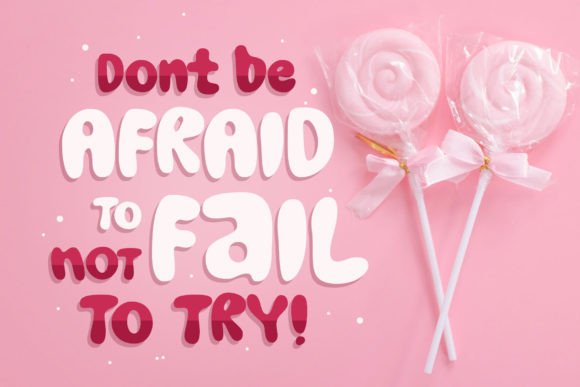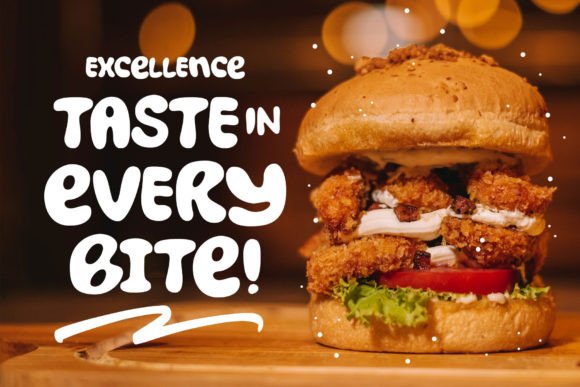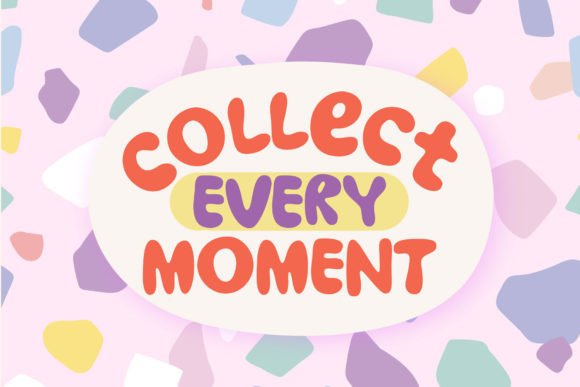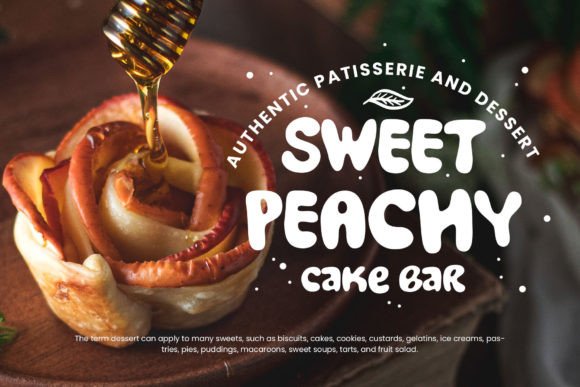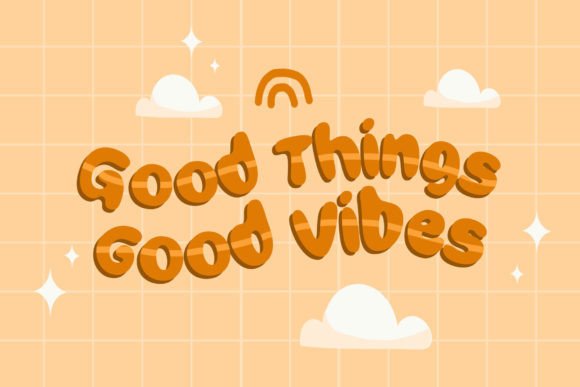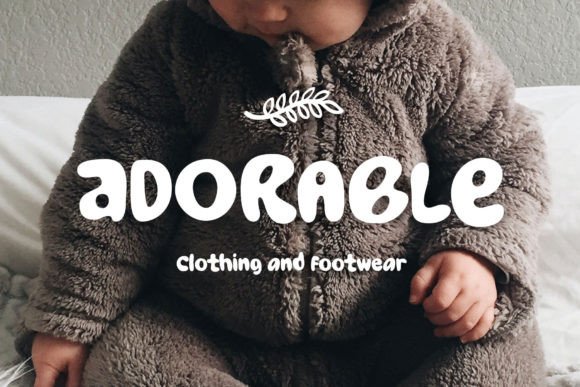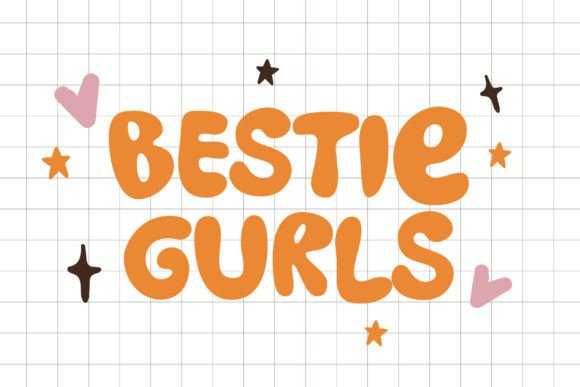
Unleash Your Creativity with Bestie Gurls Font
Have you ever been in the middle of a design project, and suddenly, you’re stuck on finding the perfect font? I recall a recent experience where I was working on a fun, playful poster for a kids’ event, and my usual go-to fonts just weren’t cutting it. That’s when I stumbled upon the “Bestie Gurls” Font, a delightful Bubble Font that instantly brought a sense of joy and whimsy to my project.
As a designer, there’s nothing quite like the thrill of discovering a font that perfectly captures the essence of your project. The “Bestie Gurls” Font is a playful, hand-drawn charm that exudes a child-like feel, making it an excellent choice for a wide range of creative endeavors.
What Makes Bestie Gurls Font Special?
The “Bestie Gurls” Font is more than just a pretty face. It’s packed with special characters and multilingual support, making it a versatile choice for various applications. Here are some of its standout features:
• Playful and child-like design: Perfect for projects that require a fun and youthful touch.
• PUA encoded: Easily access all the amazing glyphs and ligatures.
• 🌎 Multilingual support: Suitable for projects that require text in multiple languages.
• ✨ The font’s playful and hand-drawn design is perfect for adding a personal touch to projects.
• ✅ The PUA encoding makes it easy to access the various glyphs and ligatures.
• 🌈 The font comes with a range of special characters, making it ideal for creative projects.
While the “Bestie Gurls” Font is an excellent choice for many projects, there are a few minor quirks to be aware of:
• 🤔 Legibility at small sizes: As with many script fonts, legibility can be a issue when using “Bestie Gurls” at very small sizes.
• ⚠️ Limited use in formal contexts: The font’s playful design makes it less suitable for formal or professional projects.
The Story Behind Bestie Gurls Font
The “Bestie Gurls” Font was created with the intention of capturing the playful, carefree spirit of childhood friendships. The designer aimed to create a font that would bring a sense of joy and whimsy to creative projects, making it perfect for a wide range of applications.
Q: Is Bestie Gurls Font suitable for body text?
A: While “Bestie Gurls” Font can be used for body text, it’s primarily designed for display and headline use, due to its playful and decorative nature.